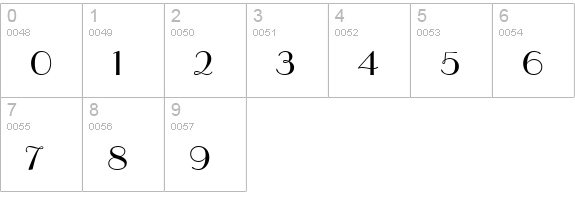
Touche SSi Font Details
Touche SSi font is a stunning display font that exudes elegance and sophistication. With its sleek and modern design, this font is perfect for adding a touch of class to any project. Its clean lines and sharp edges make it incredibly versatile, suitable for both headlines and body text. What sets Touche SSi font apart is that it is freely available to download at FontsMarket.com. This means that you can add this exceptional font to your collection without spending a dime. Whether you're a professional designer or a hobbyist, you can now enjoy the beauty of Touche SSi font without any financial constraints. With its wide range of characters, including uppercase and lowercase letters, numbers, and punctuation marks, Touche SSi font offers endless possibilities for creative expression. Whether you're designing a logo, creating a poster, or crafting a unique invitation, this font will add a touch of elegance and sophistication to your project. The versatility of Touche SSi font makes it suitable for a variety of industries, from fashion and beauty to food and beverage. Its clean and modern design ensures that your message will be delivered with clarity and impact, making it an excellent choice for both print and digital applications. So why wait? Head over to FontsMarket.com and download Touche SSi font for free today. With its timeless elegance and effortless style, this font is sure to elevate your designs to new heights. Discover the beauty and versatility of Touche SSi font and unleash your creativity now.